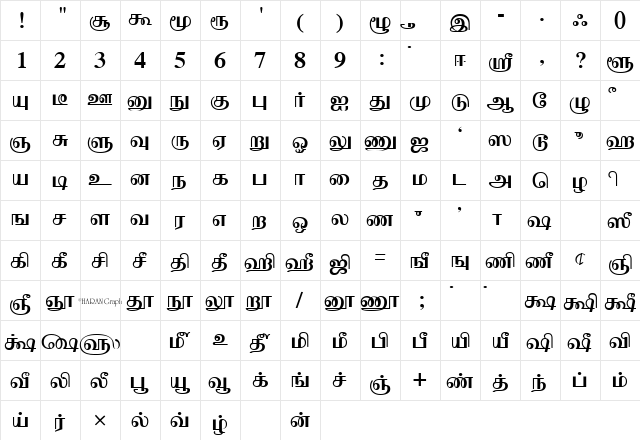
Moderntamil Plain
Design Context for Moderntamil Typeface
Moderntamil offers clean, dependable letterforms without strong stylistic allegiance, making it a practical choice for designers who need flexibility.